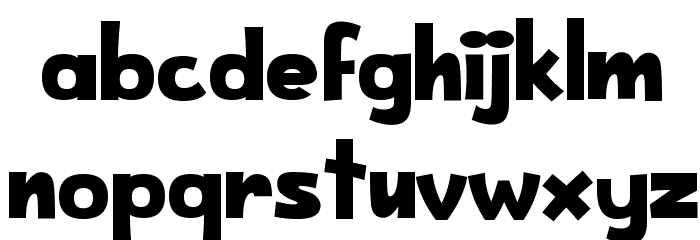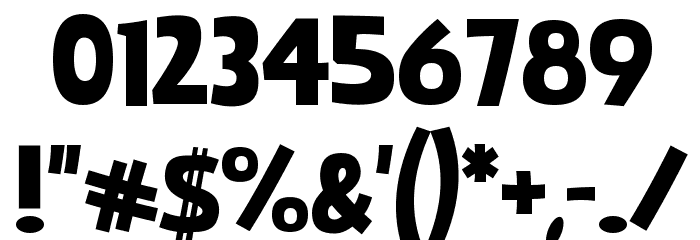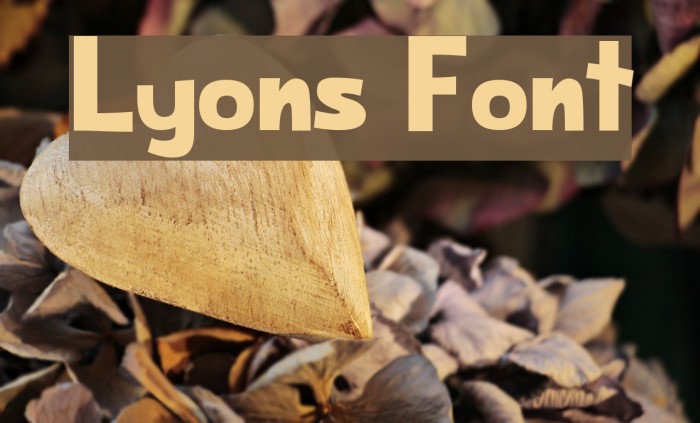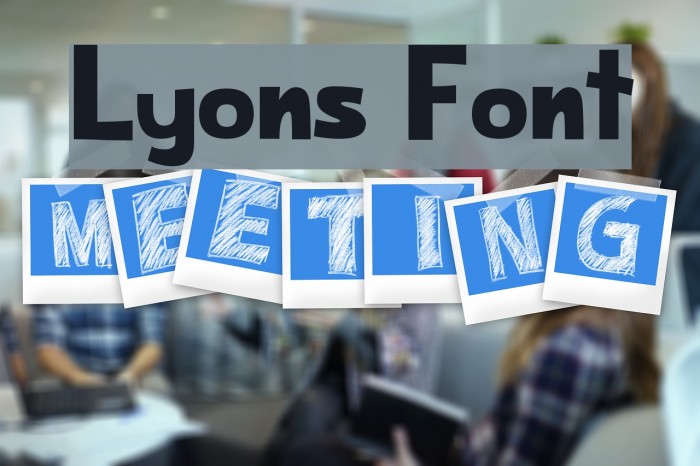
Lyons Font
This font features bold, rounded characters with a playful and friendly appearance. The uppercase letters are slightly wider than the lowercase, giving a balanced and approachable look. The strokes are consistent in thickness, contributing to a uniform and cohesive style. The numbers and special characters maintain the same boldness, ensuring readability and visual harmony across all elements. The overall design is modern and suitable for a variety of creative applications.
A bold, rounded font with a playful and friendly style.
- Proposed Projects: Ideal for children's books, playful branding, posters, and social media graphics.